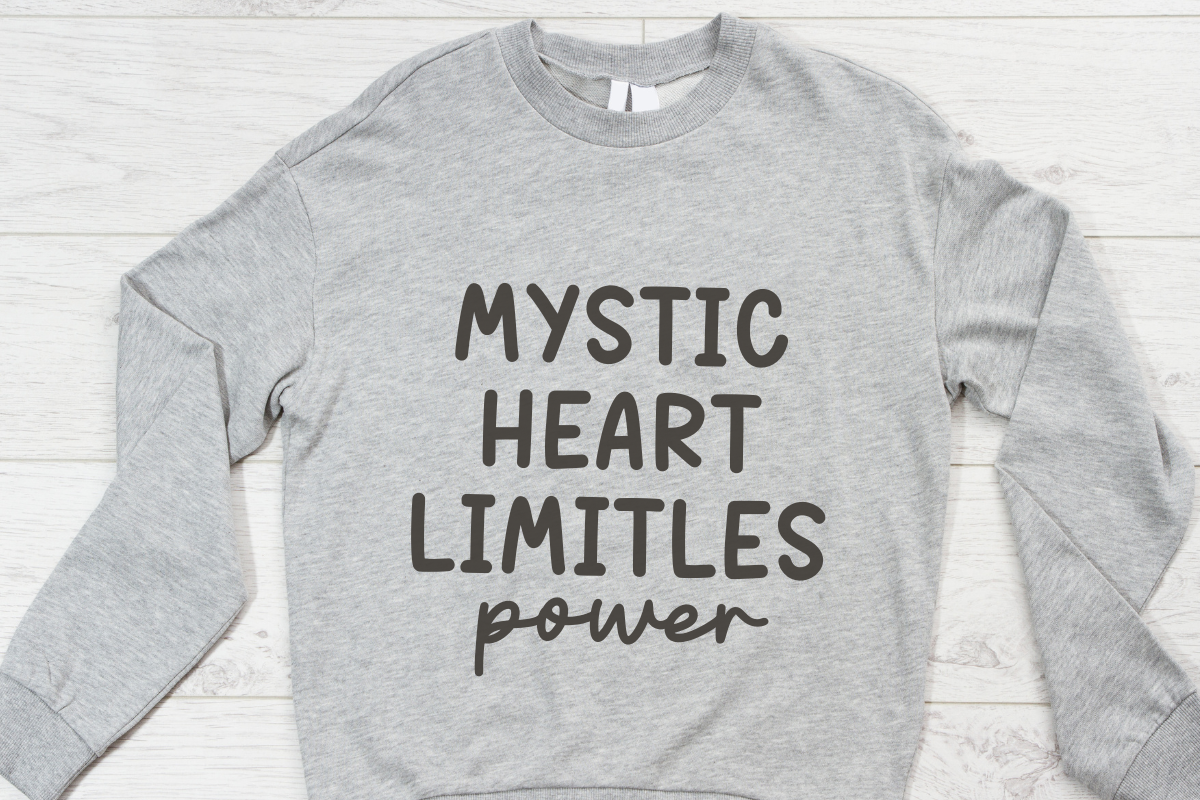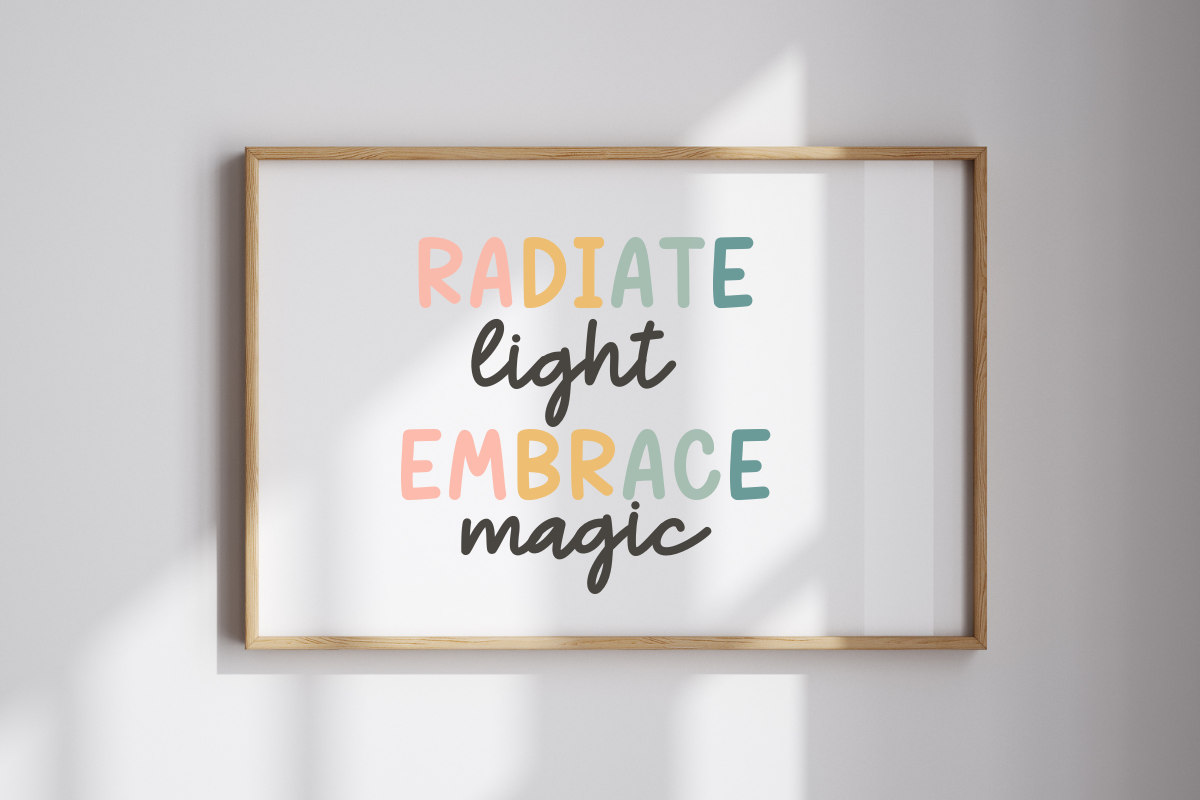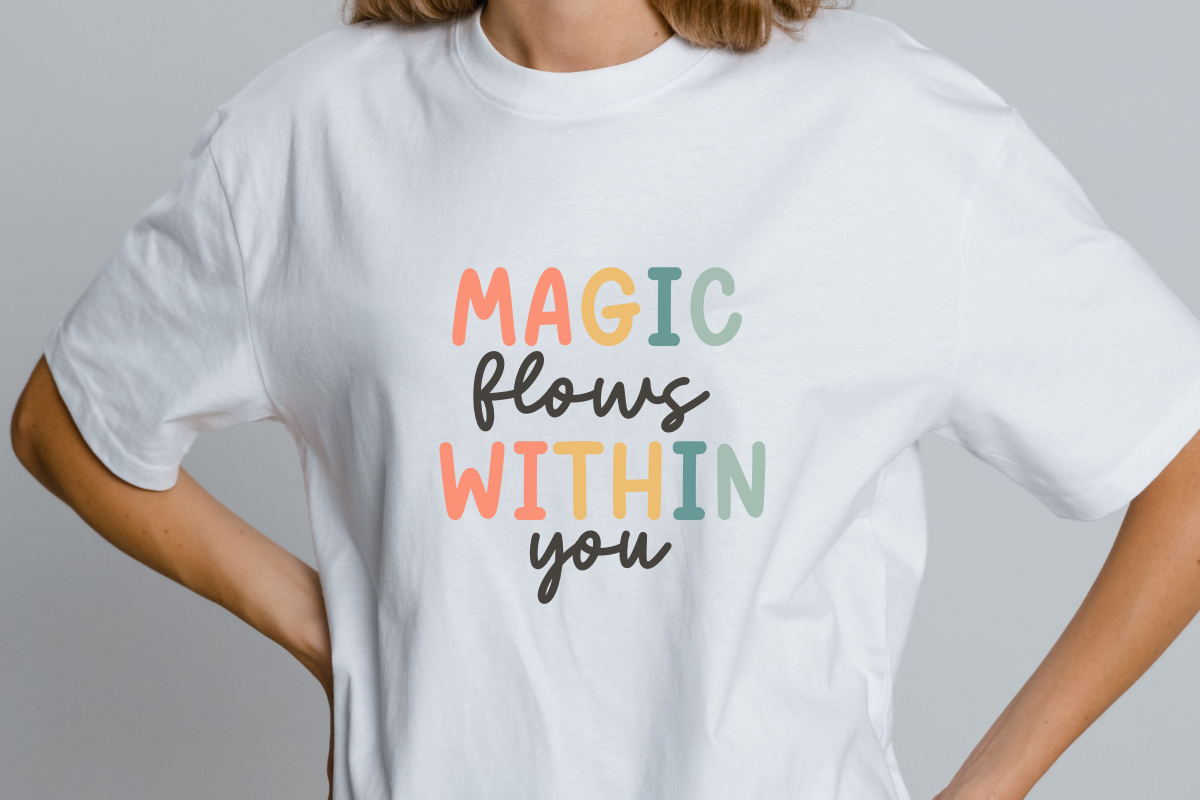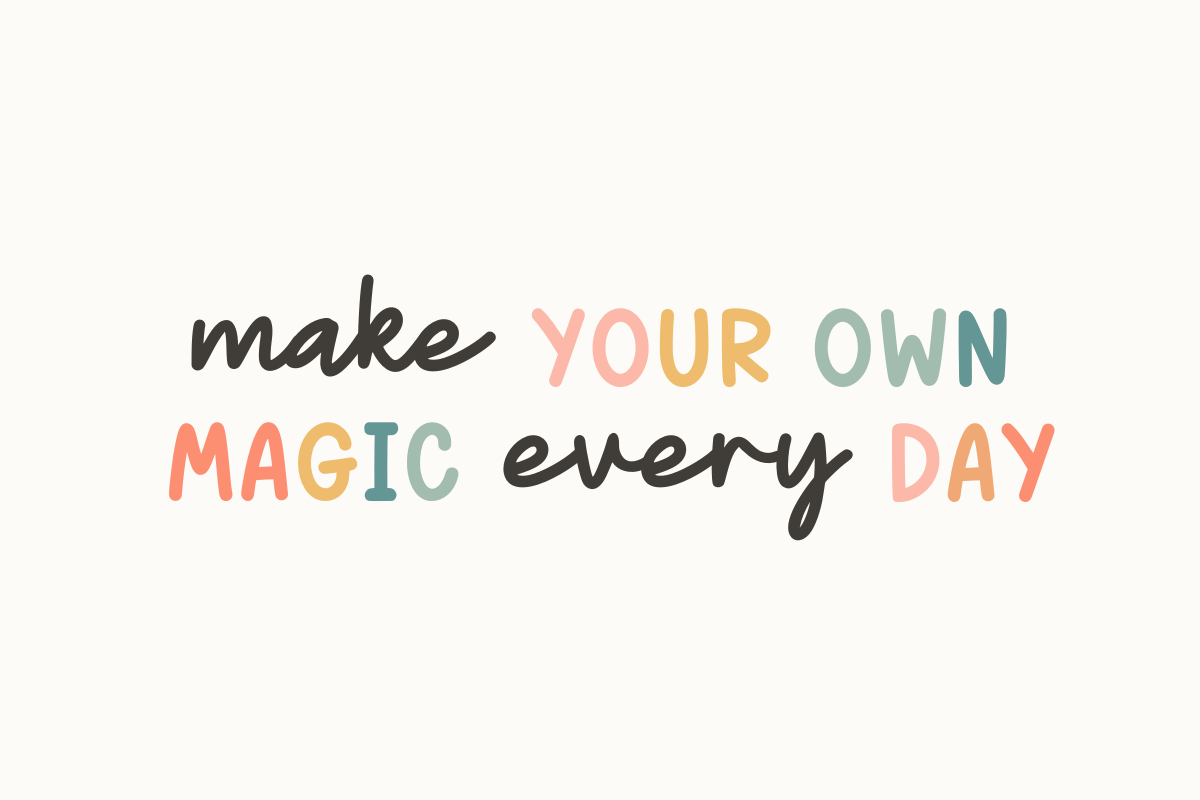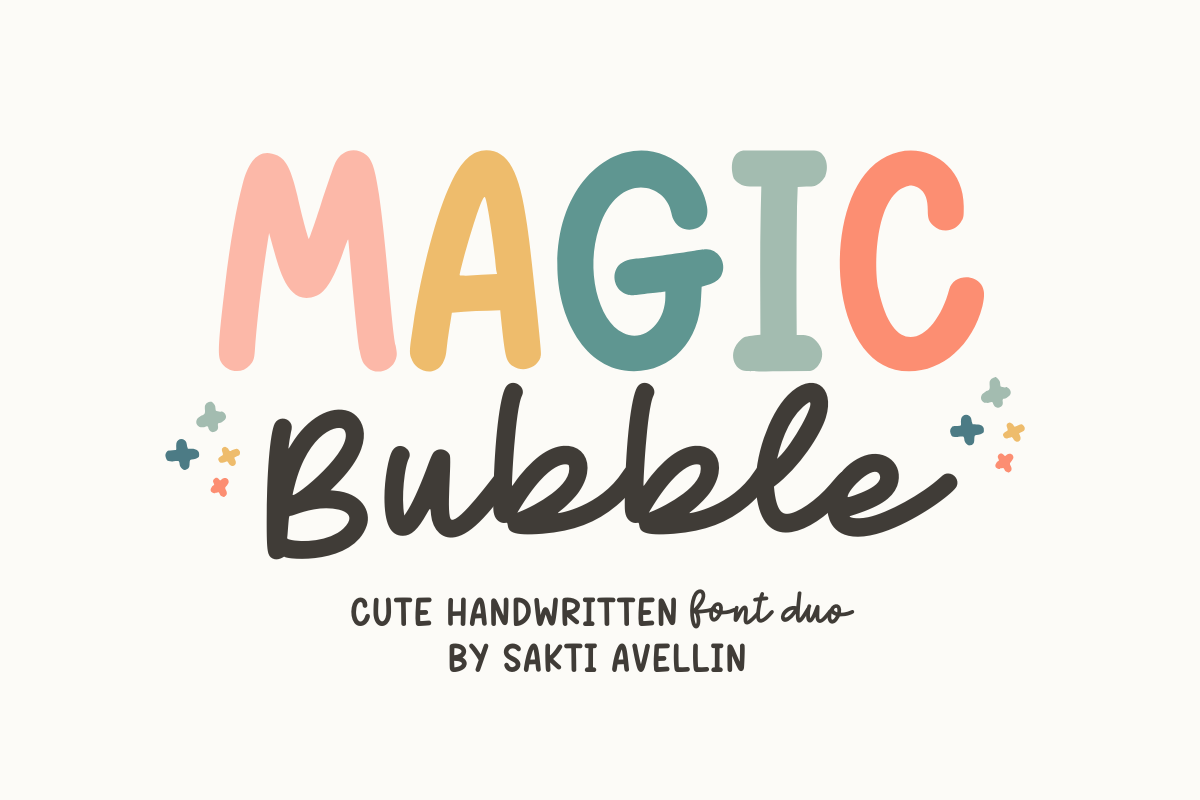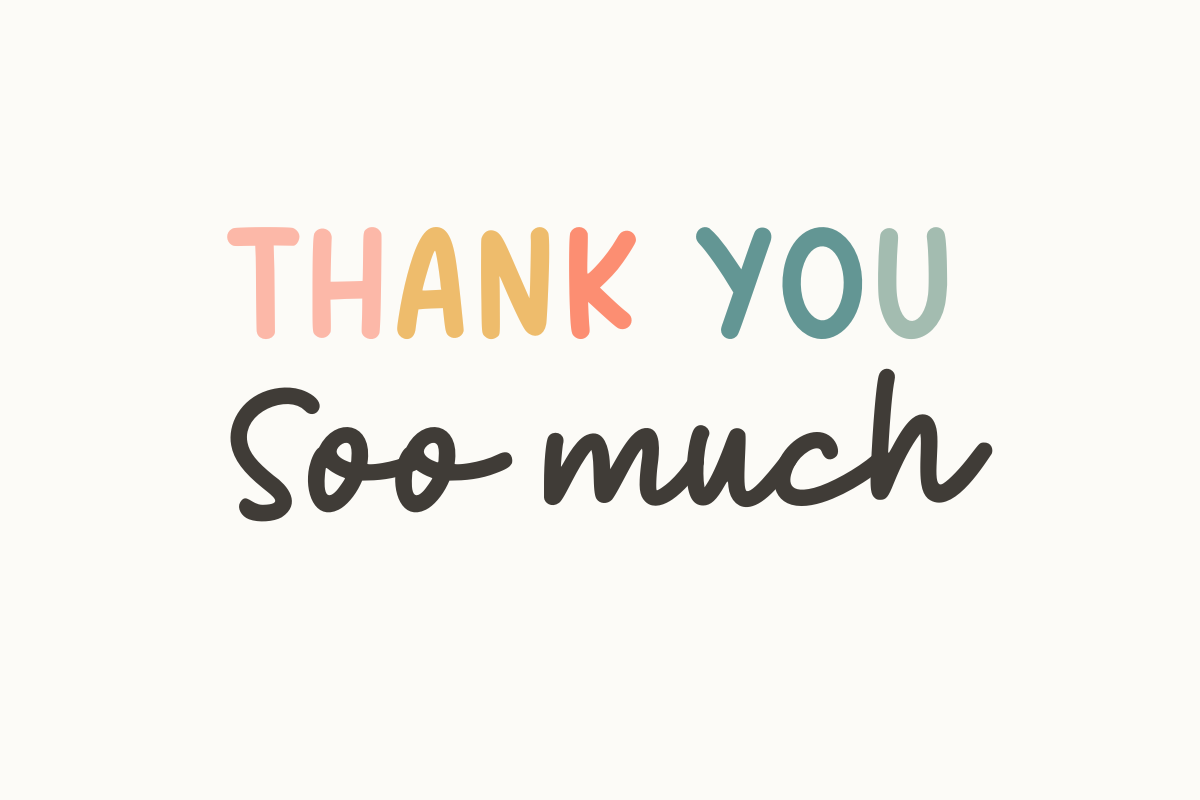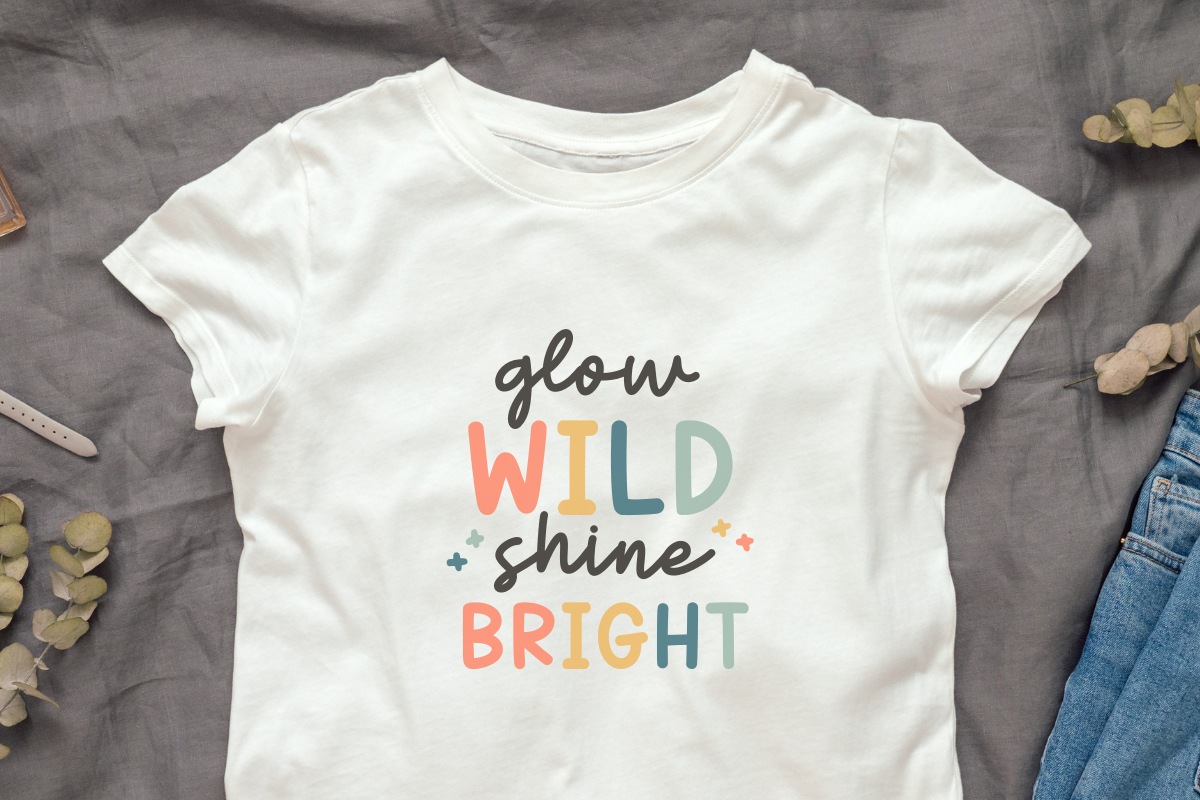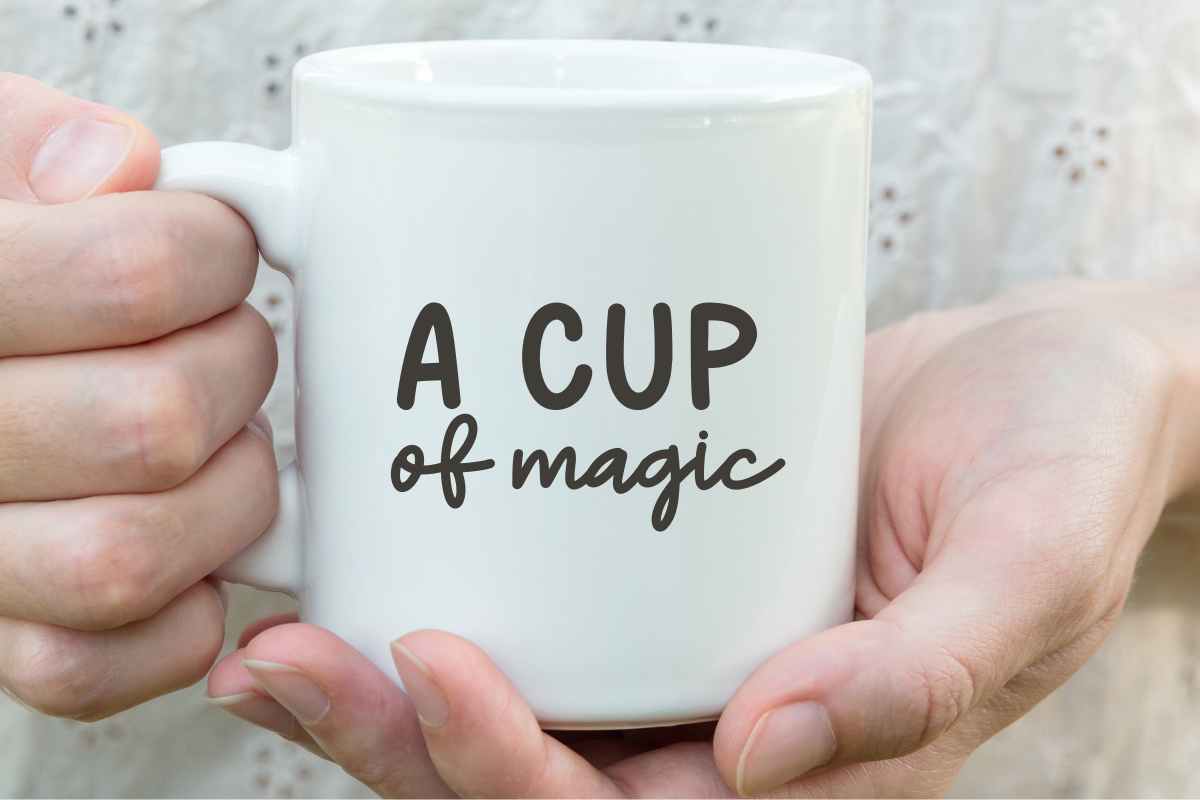
Magic Bubble - Handwritten Font Duo
Magic Bubble is an enchanting and playful cute handwritten font duo that effortlessly combines two complementary styles: a bold, chunky display font and a smooth, flowing script font. This versatile pair is perfect for creative font combinations, making it essential for kids' branding, cheerful party invitations, fun feminine logos, vibrant t-shirt designs, and engaging social media graphics. The mix of a solid bubble style with a delicate script ensures it is a powerful display typeface for headlines, product packaging, and any project that needs a touch of modern, adorable magic. Bring delightful charm to your designs with this whimsical and modern font duo!